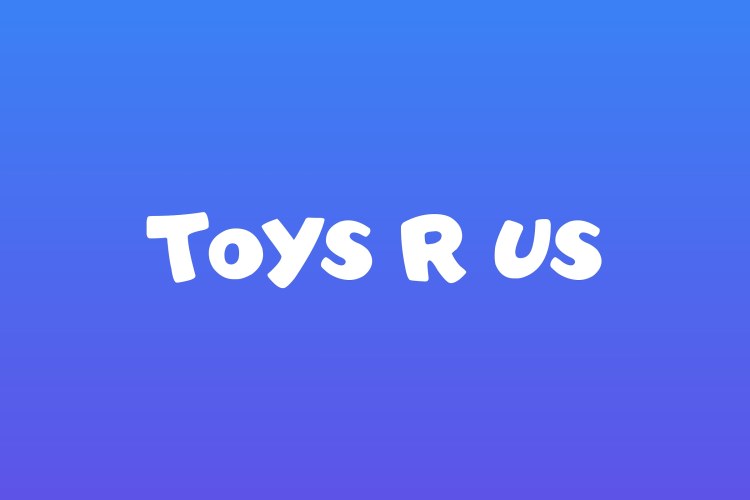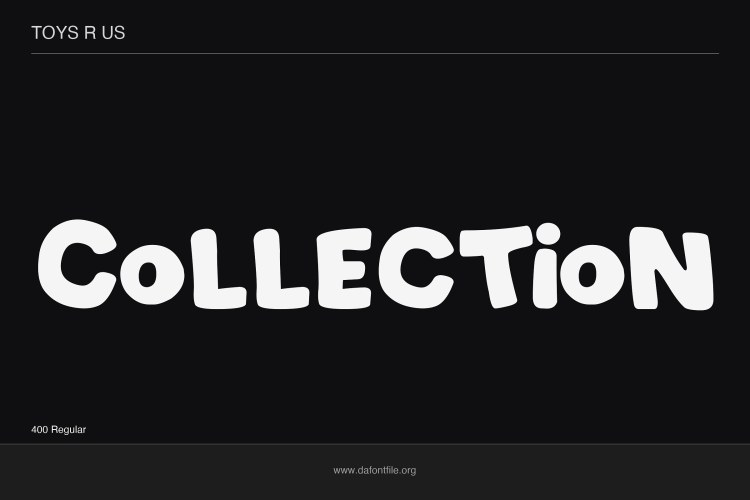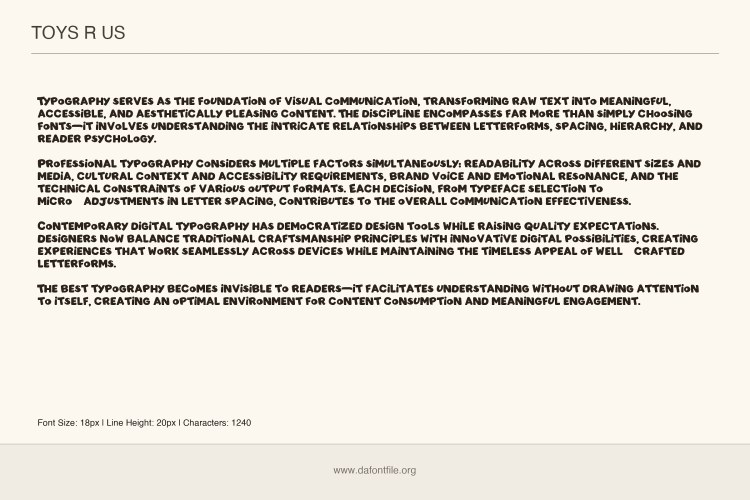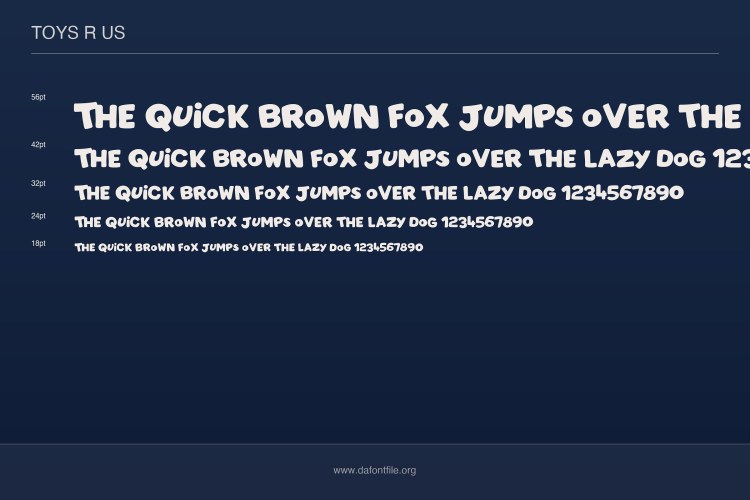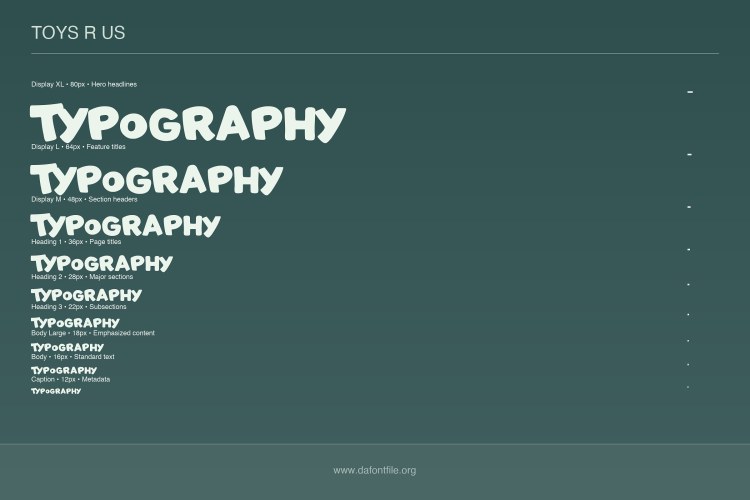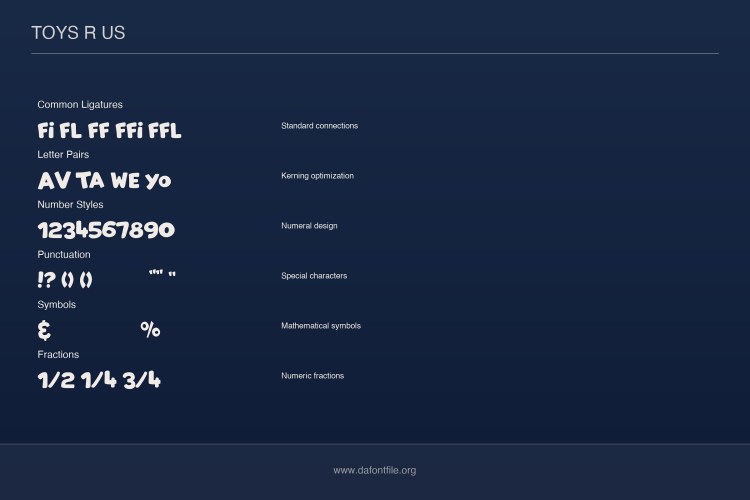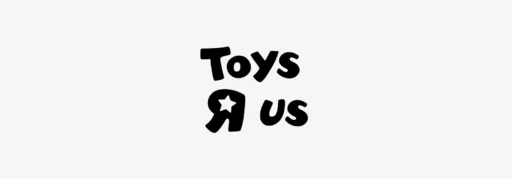
Toys R Us Font
The Toys R Us font has a cheerful, bold style that instantly grabs attention. Its rounded and playful shapes give designs a lively and child-friendly feel. This font works well for kids’ products, party invitations, or fun branding projects. It adds a sense of joy and creativity to any design.
Toys R Us Font is a Display Fonts font that brings a professional and versatile look to your projects. The Toys R Us font has a cheerful, bold style that instantly grabs attention.